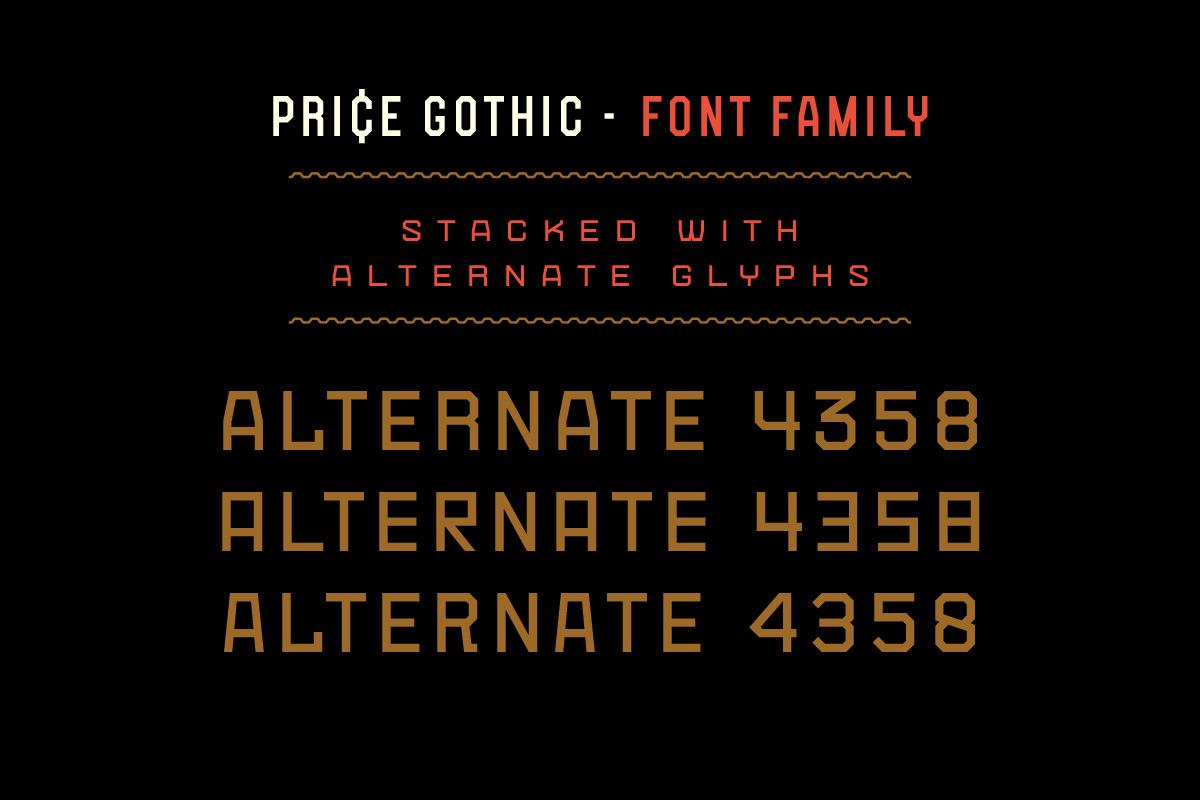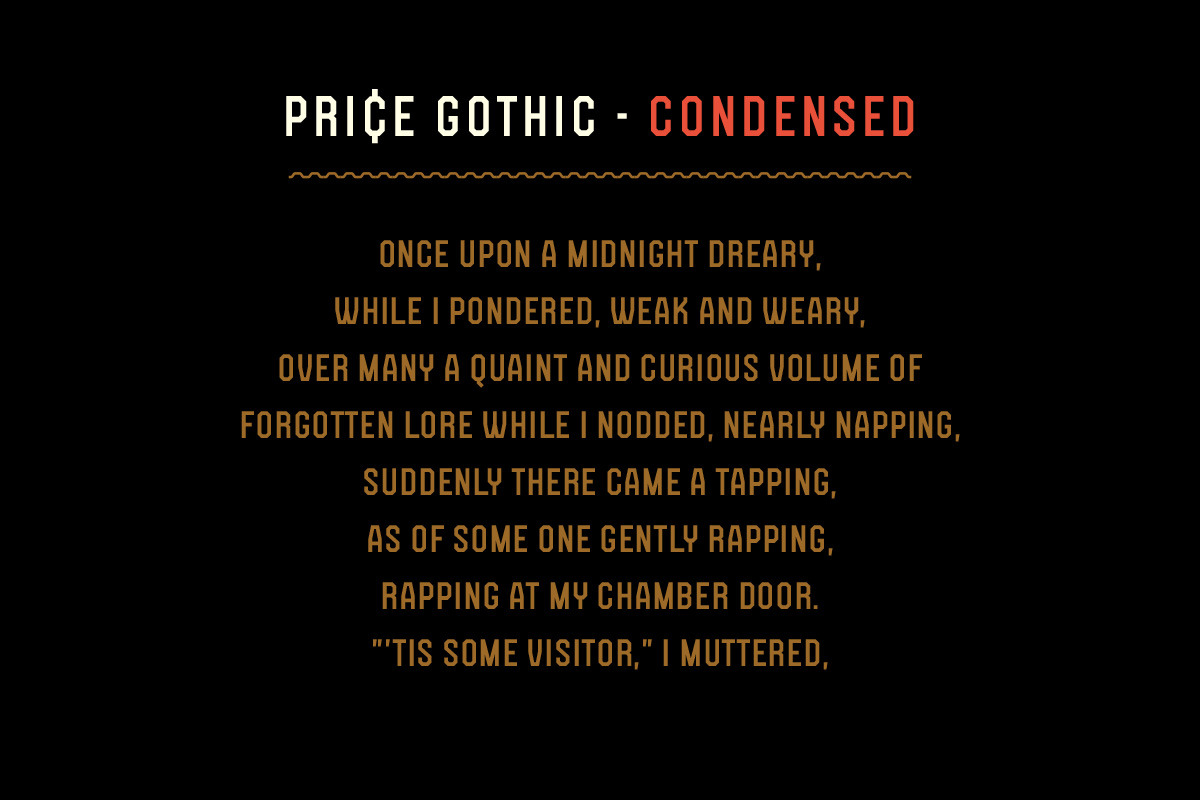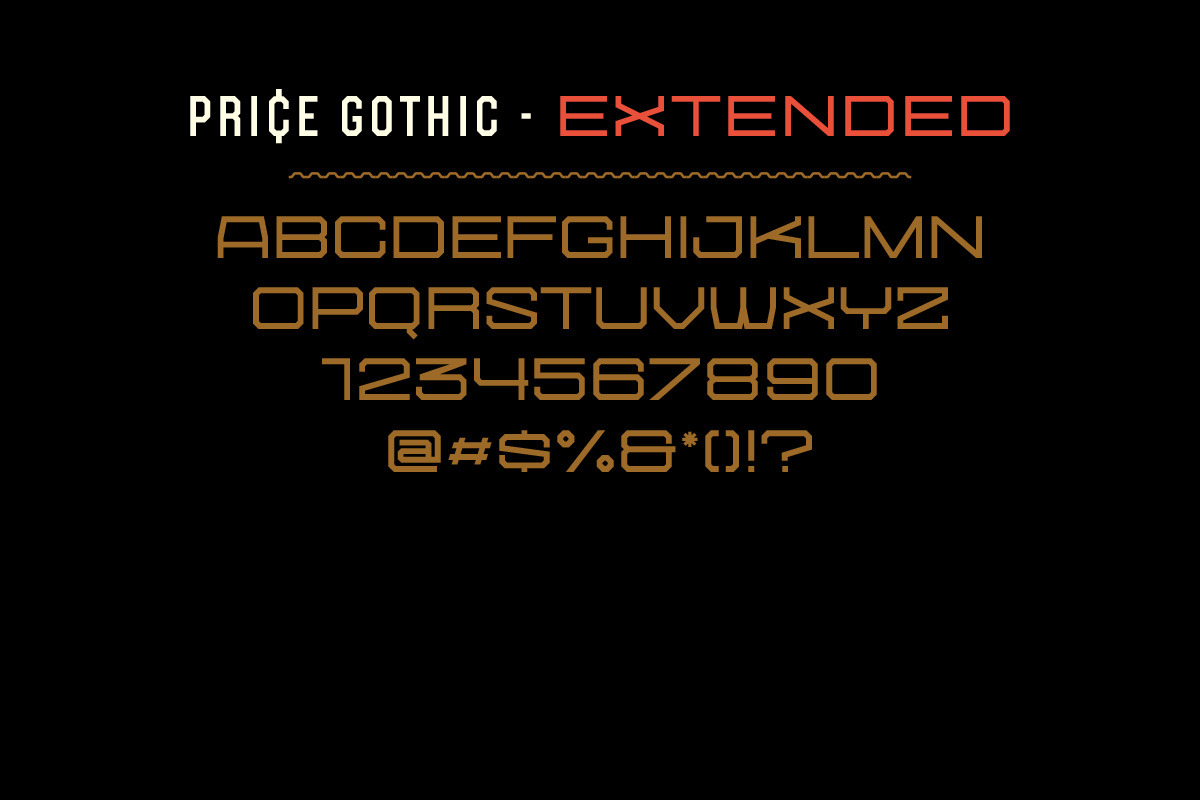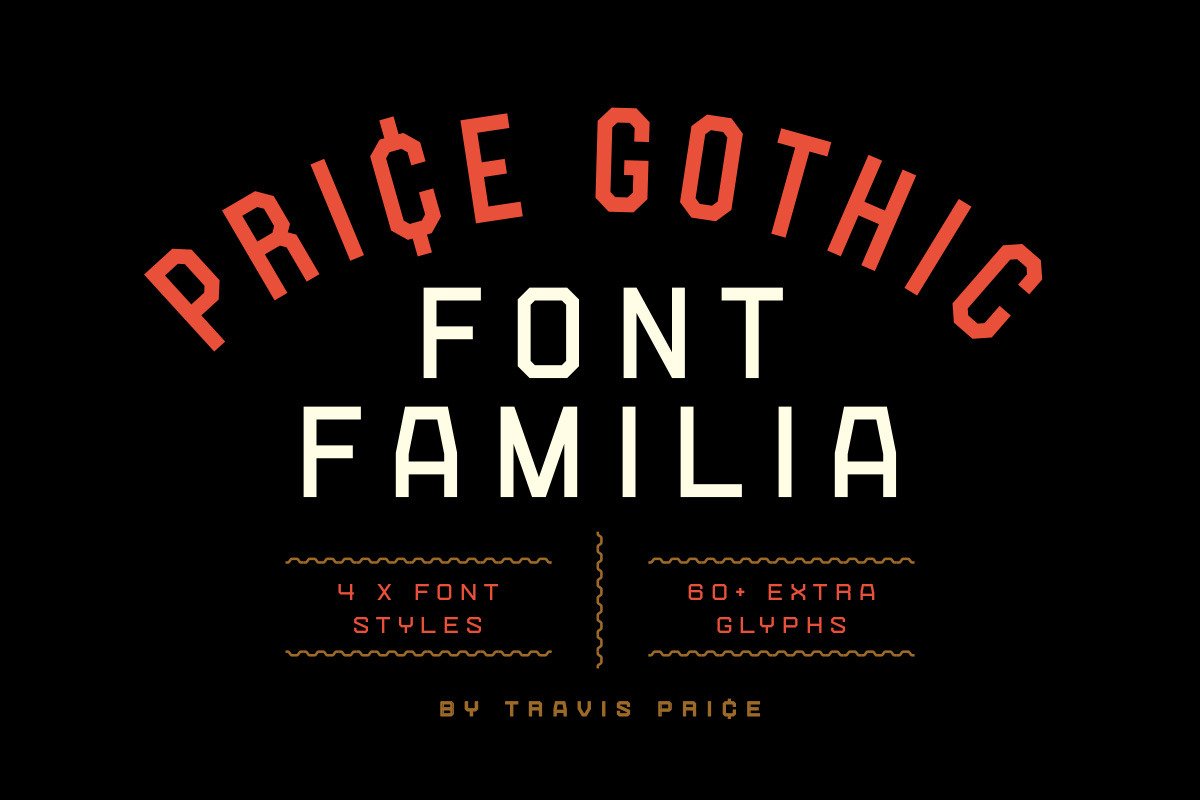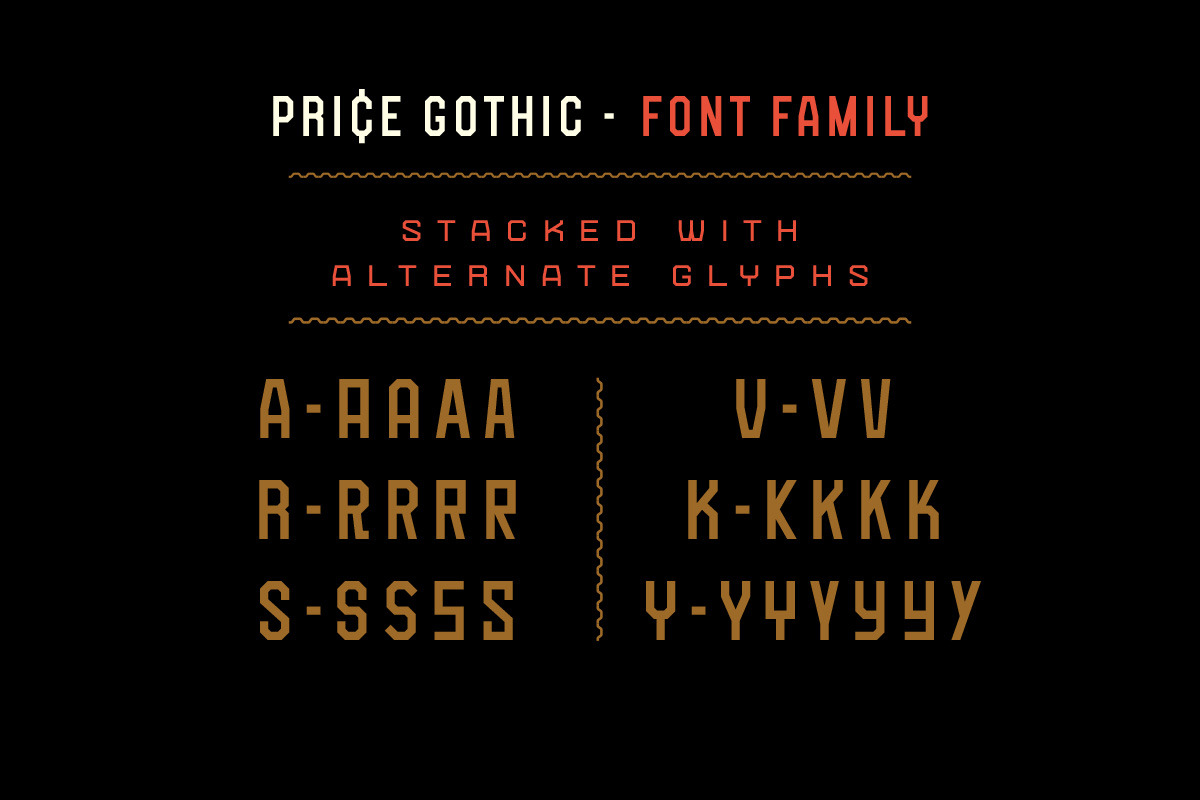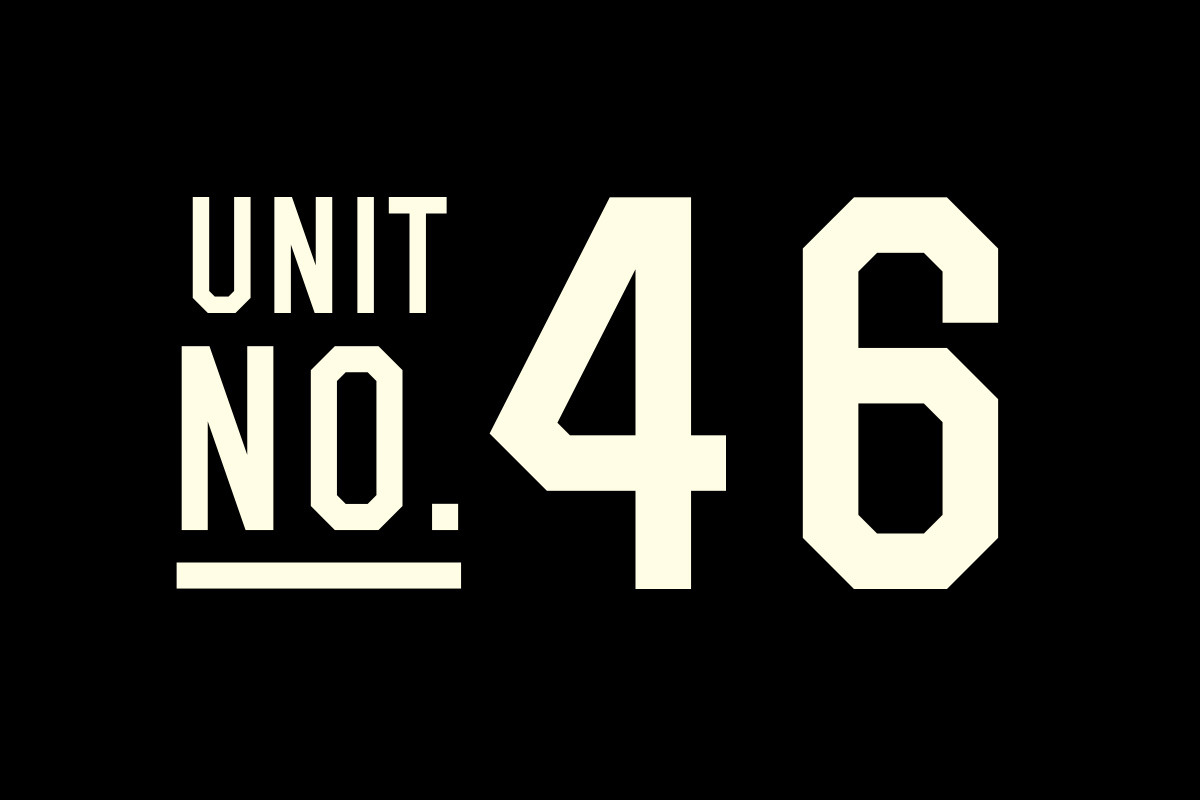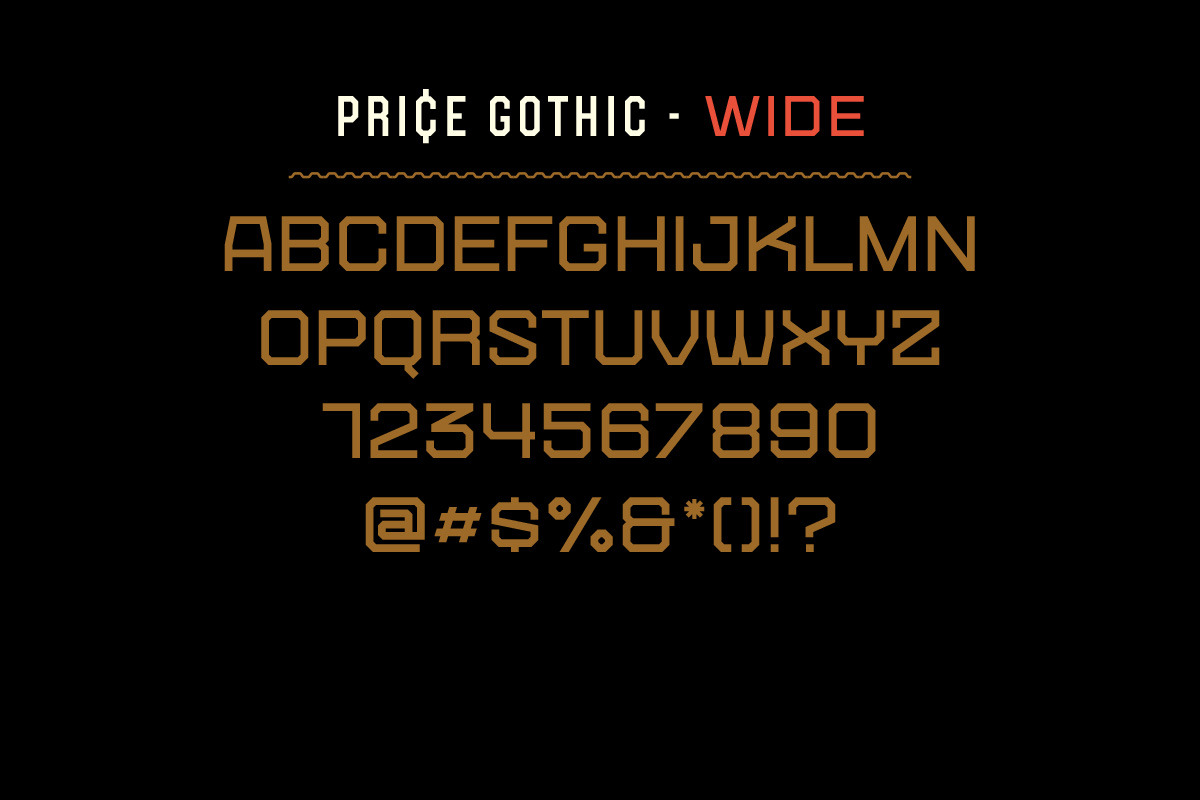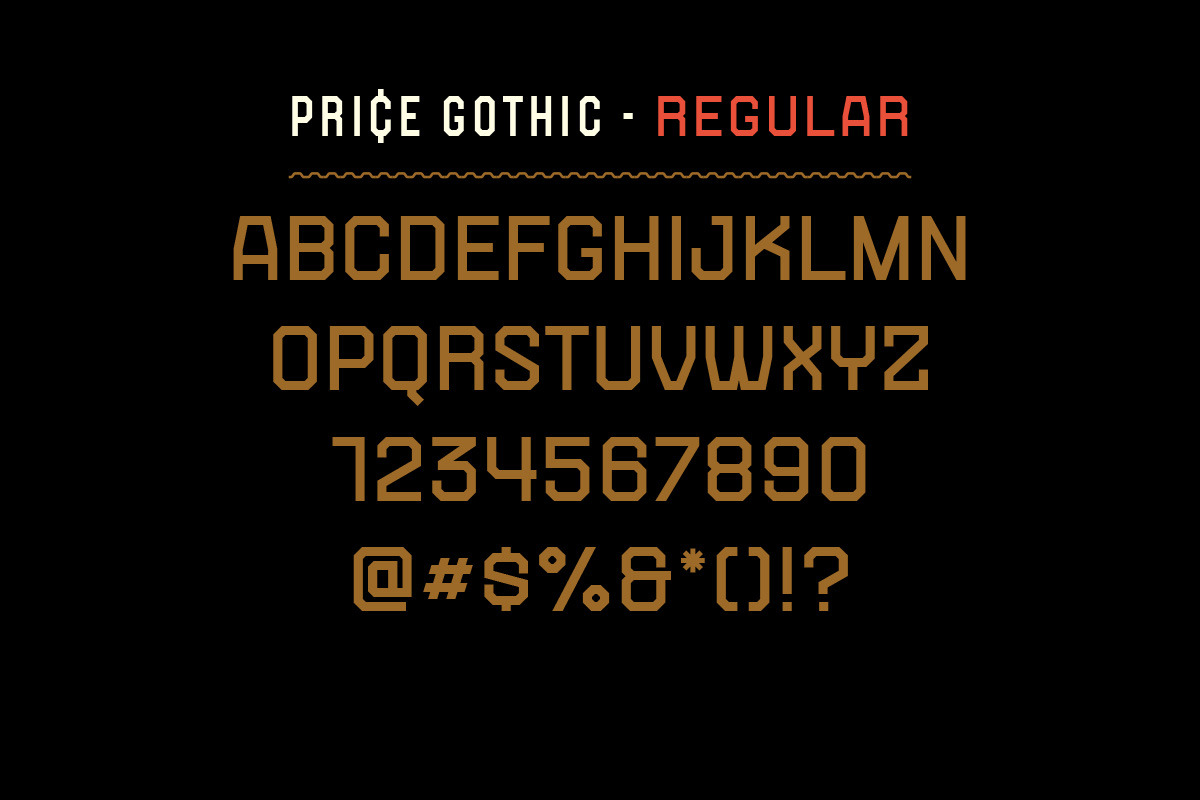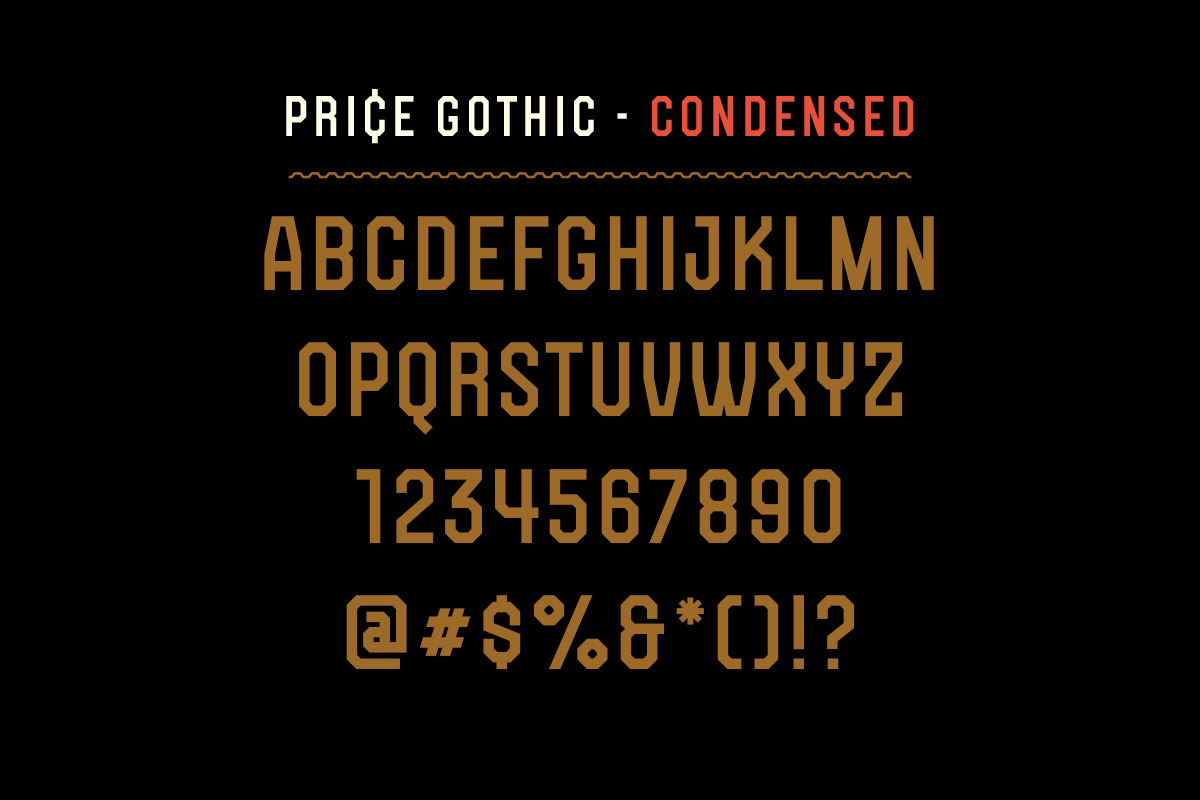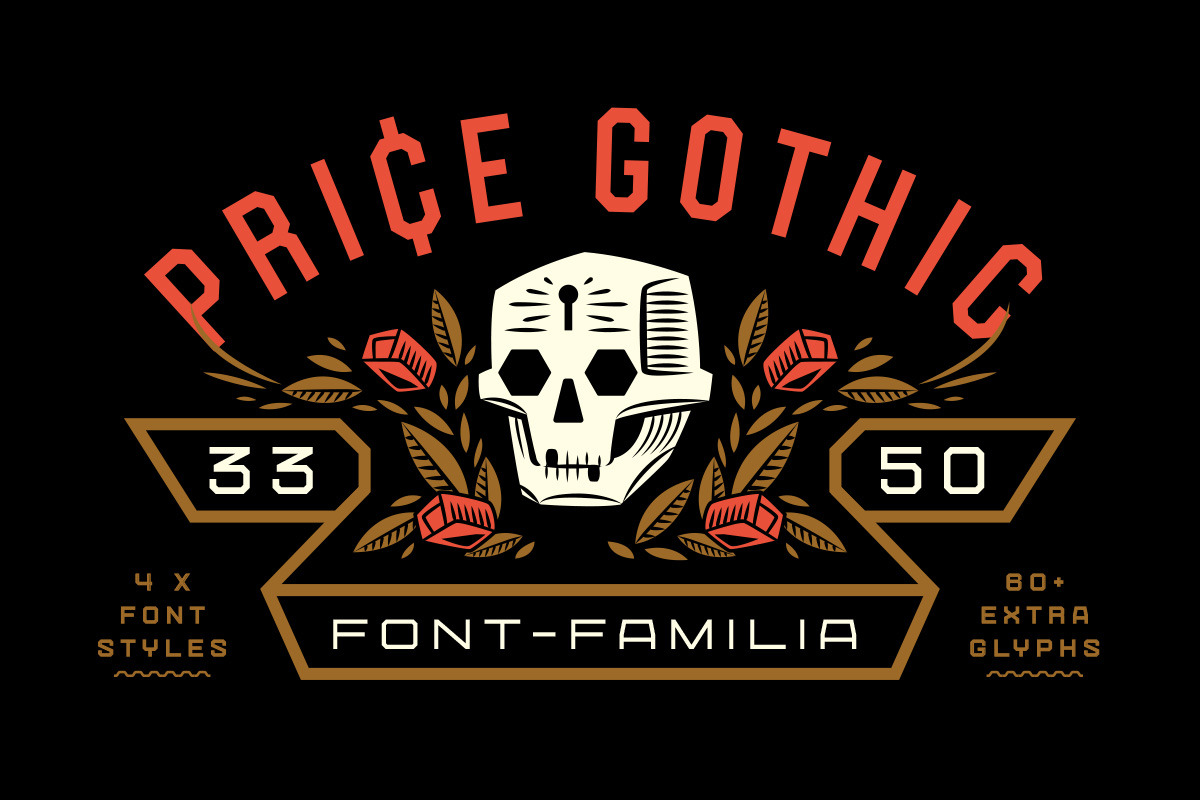
Price Gothic Font Family
A cross between athletic block and military industrial - Price Gothic was created as a utility font for logo, branding and apparel design. With over 60+ Alternate Glyphs it’s easy to change its aesthetic for any application.
Features : Uppercase Only Punctuation & Numbers